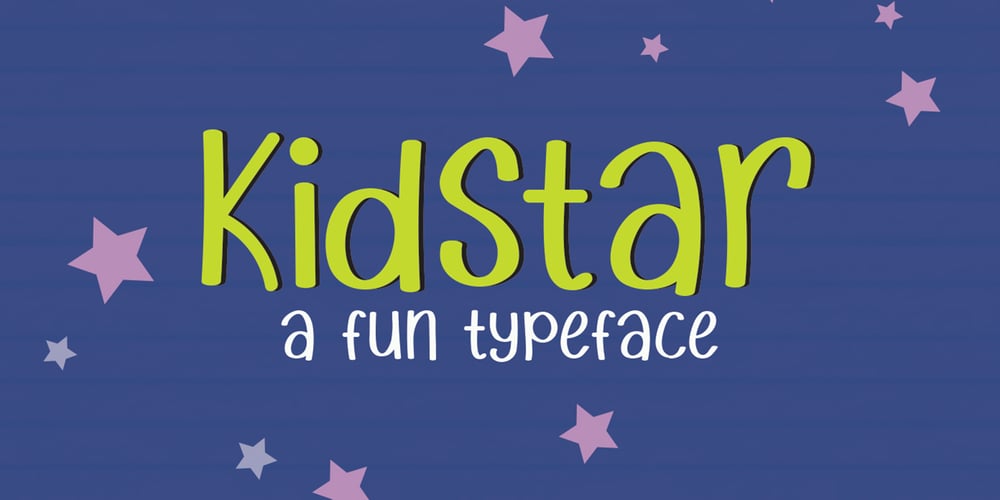
Kidstar Font Family was designed by Jos Gandos and published by Jos Gandos. Kidstar contains 1 styles and family package options. Kidstar is a simple, fun and cute font for beautiful designs. Kidstar is great for branding design, kids product displays, logos, product packaging or simply quotes and design with stylish text overlay to any background image. It makes for a cute typeface with combination between uppercase and lowercase.